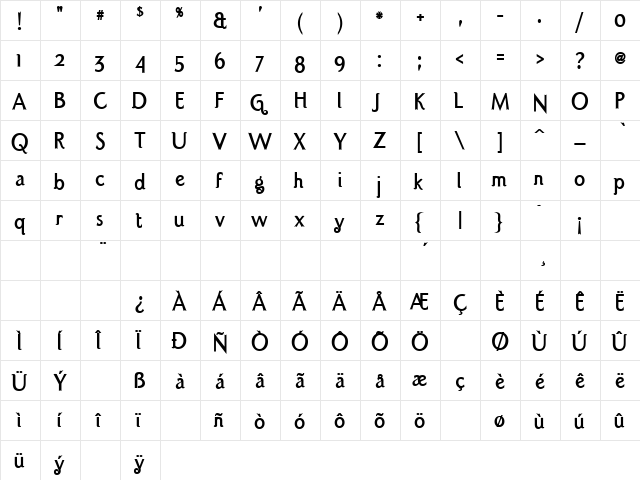
Port Credit Bold
Design Context for Port Credit Typeface
Port Credit is a composed and adaptable typeface that performs quietly and consistently across a wide range of design contexts. Its bold stroke weight gives it real presence on the page.